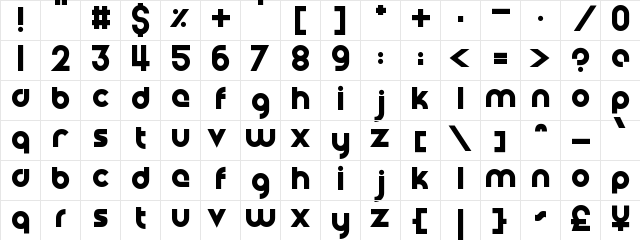
Hello Angel Regular
| Designer | Darrell Flood |
Design Context for Hello Angel Typeface
Hello Angel is a composed and adaptable typeface that performs quietly and consistently across a wide range of design contexts.